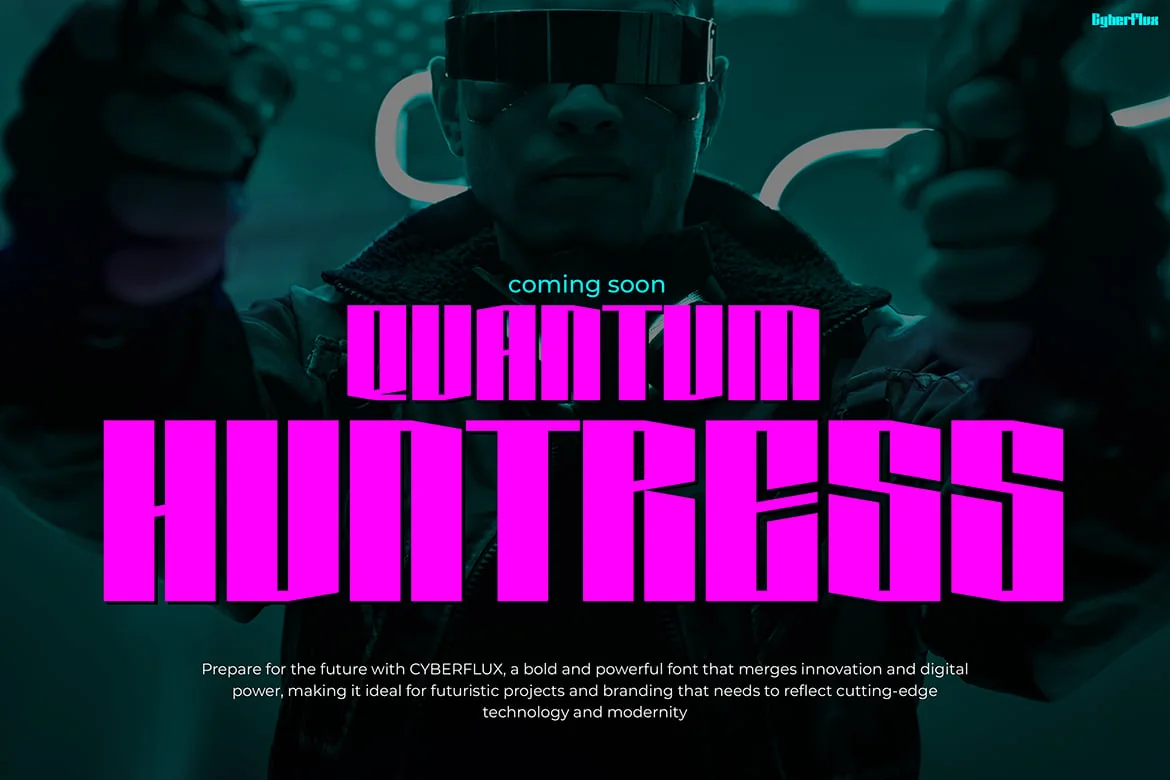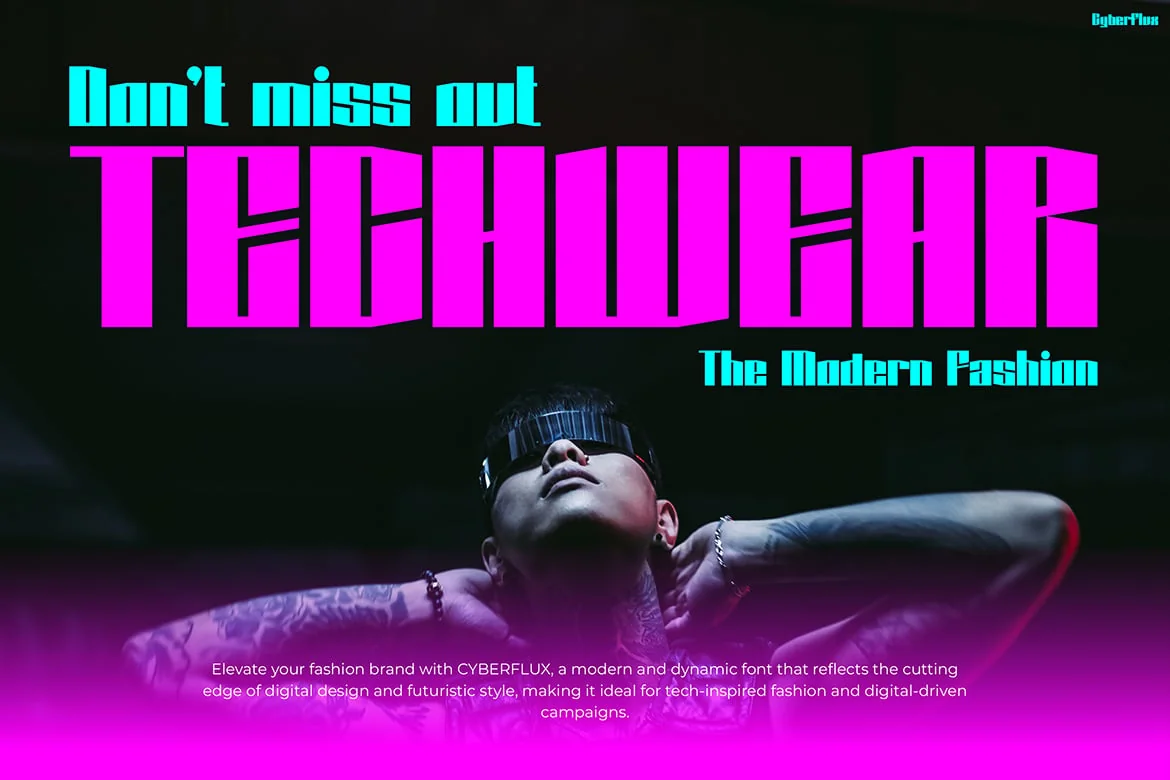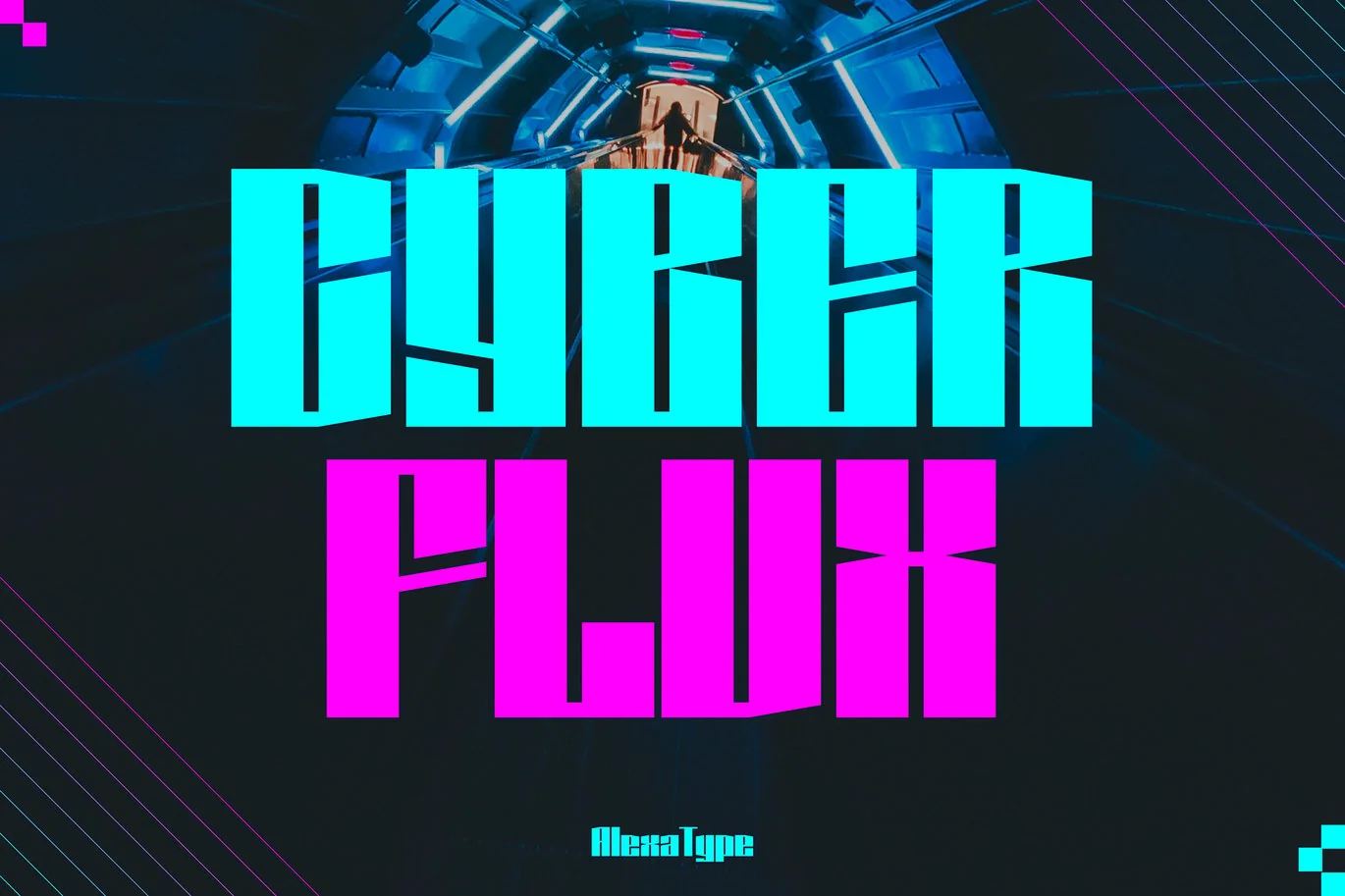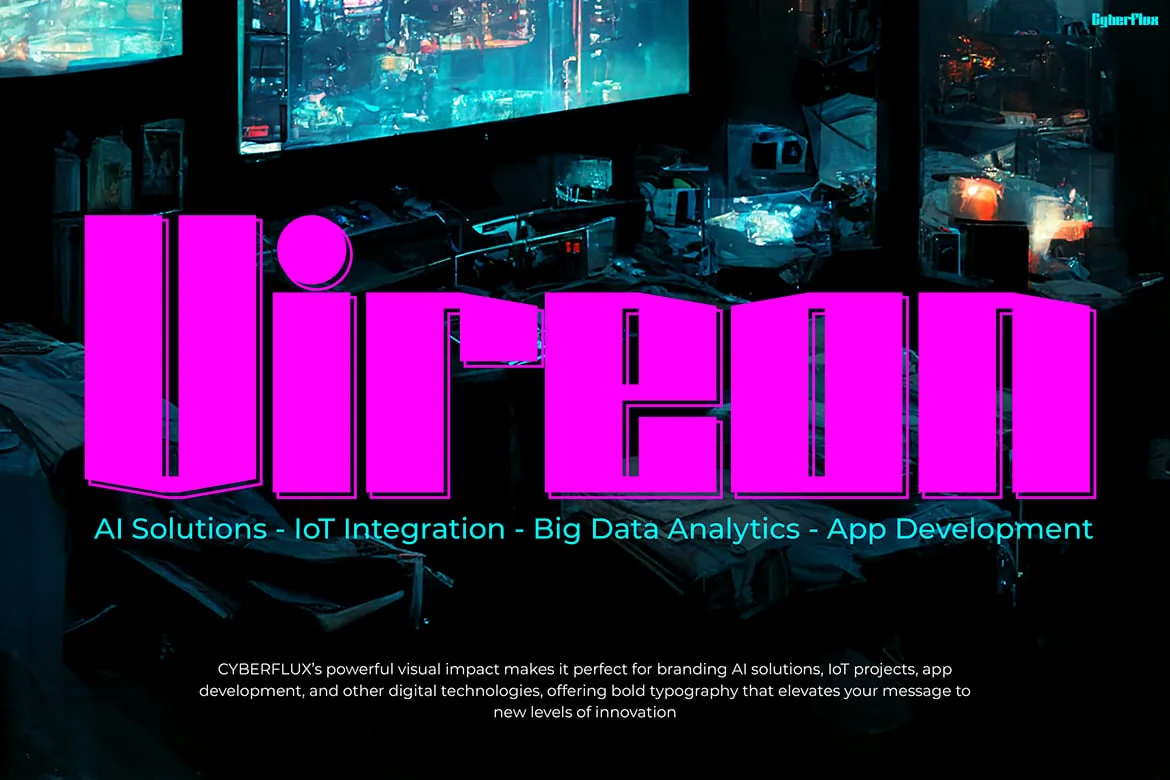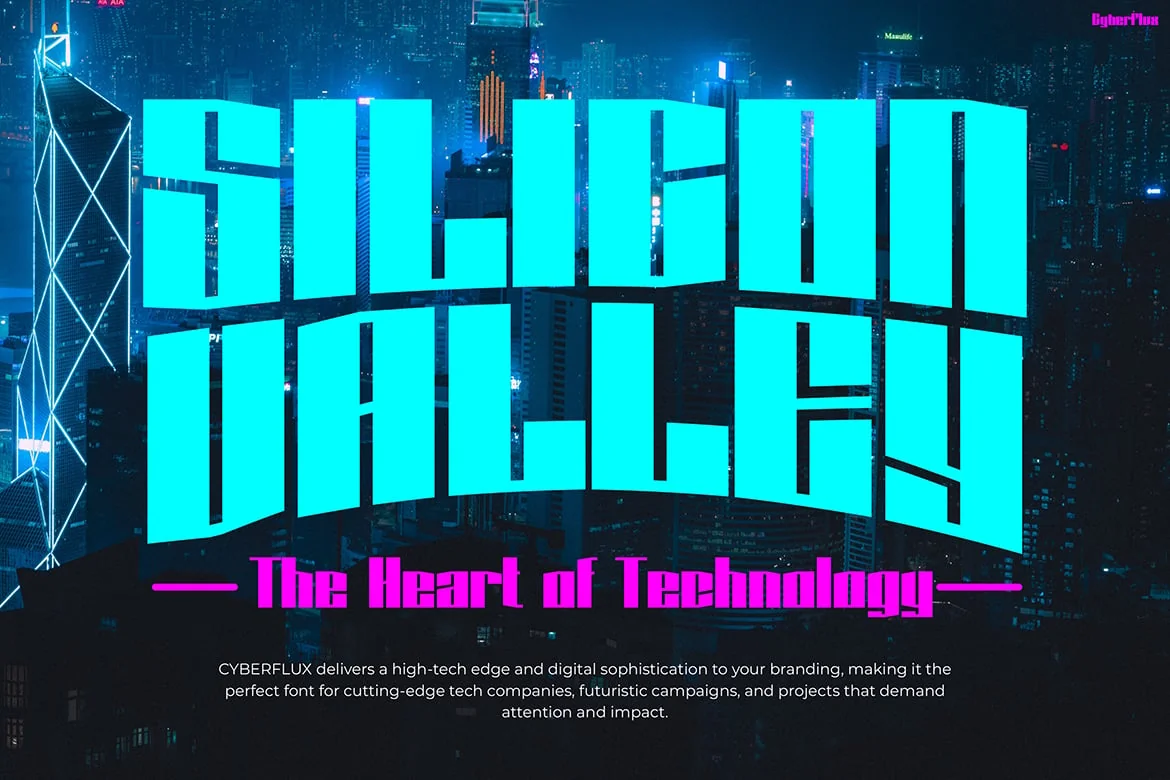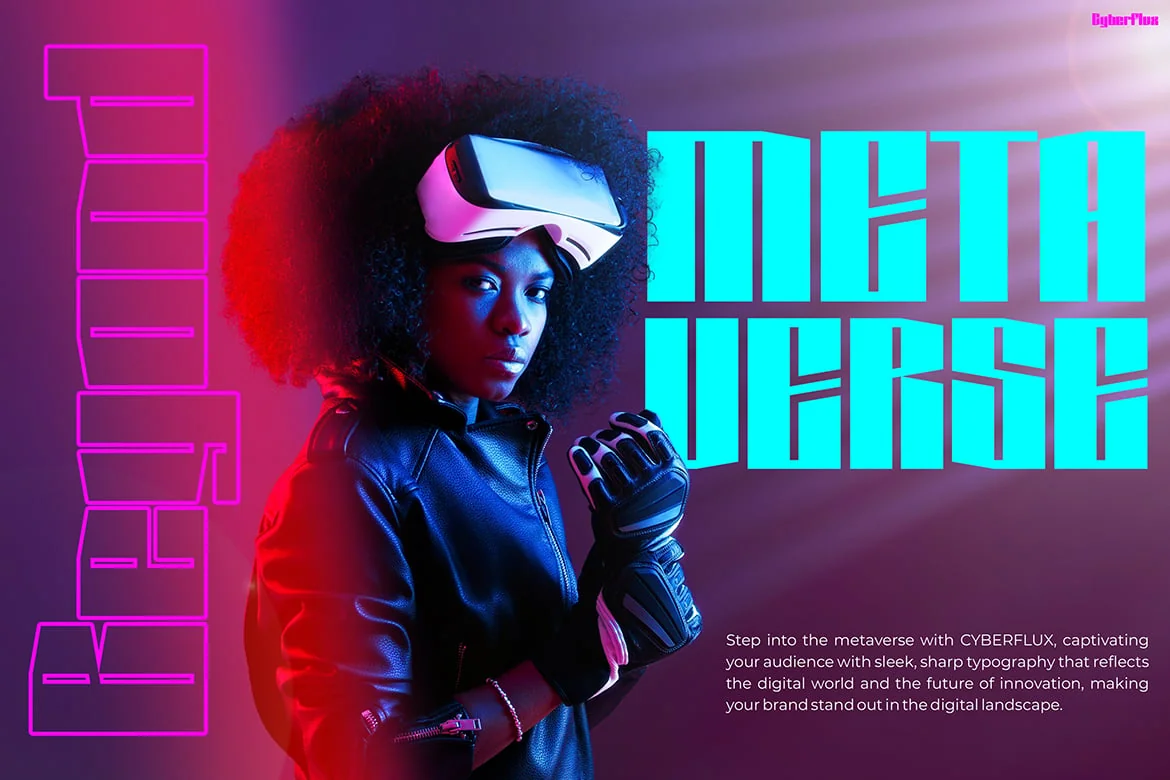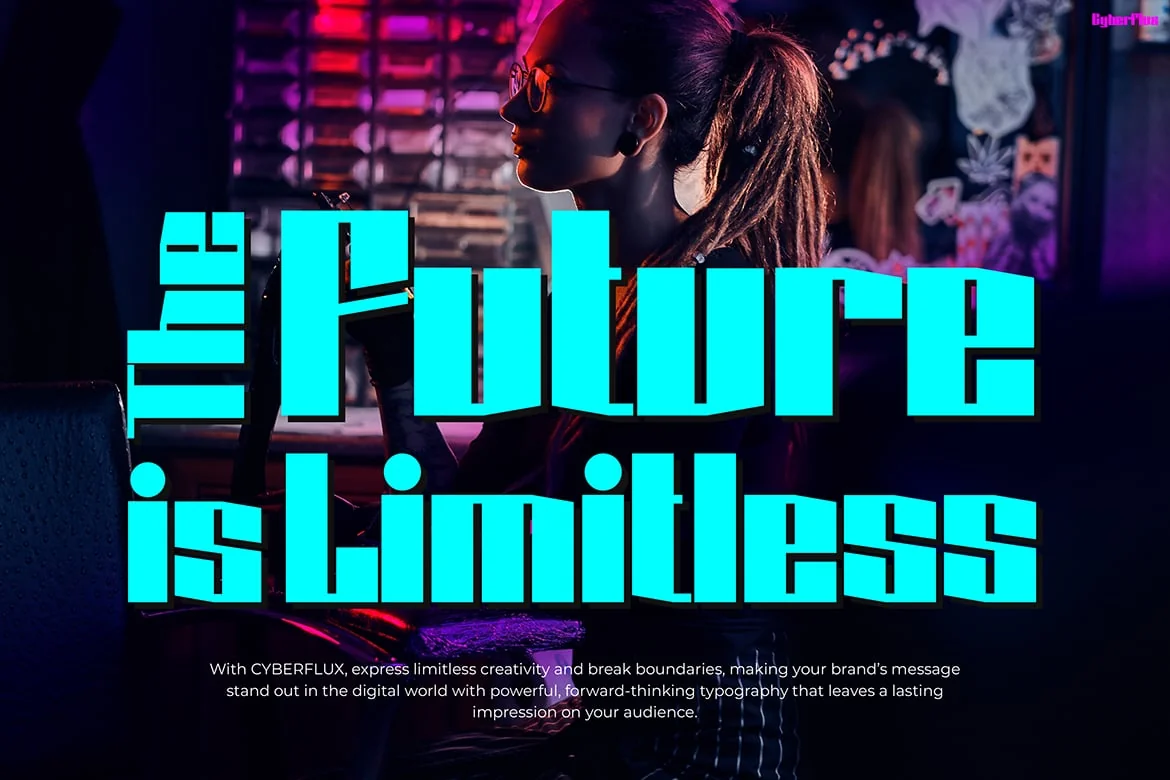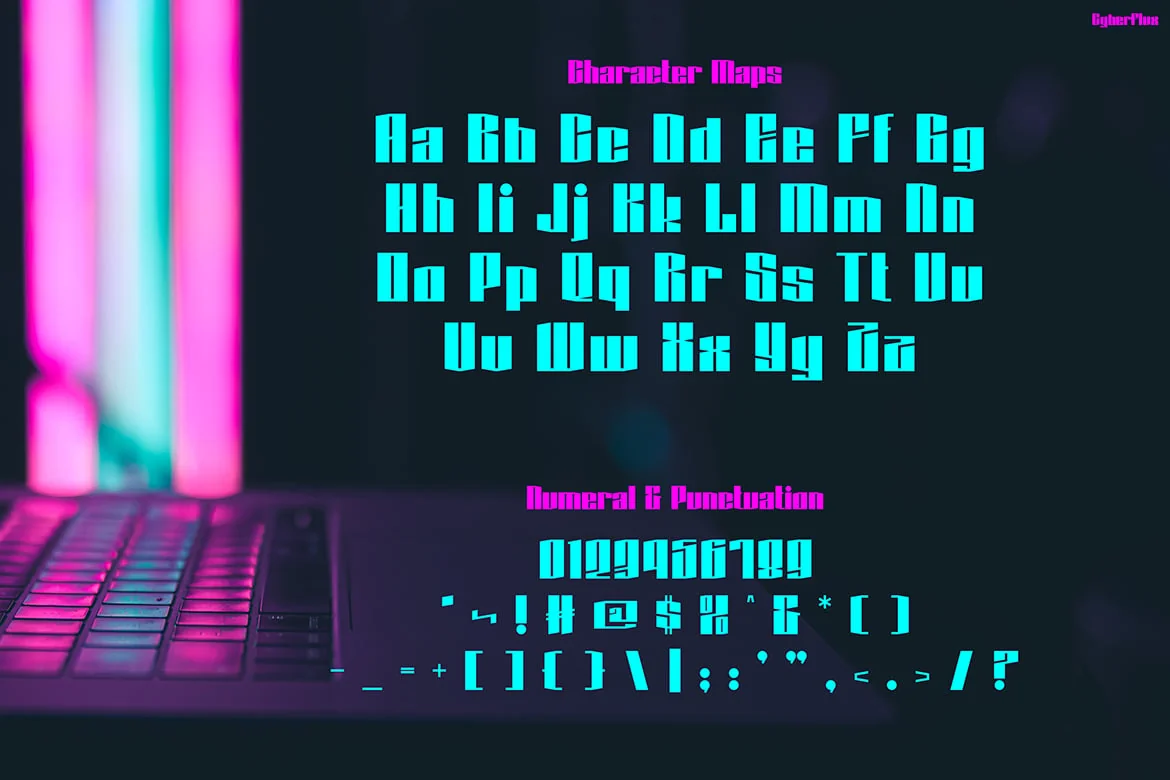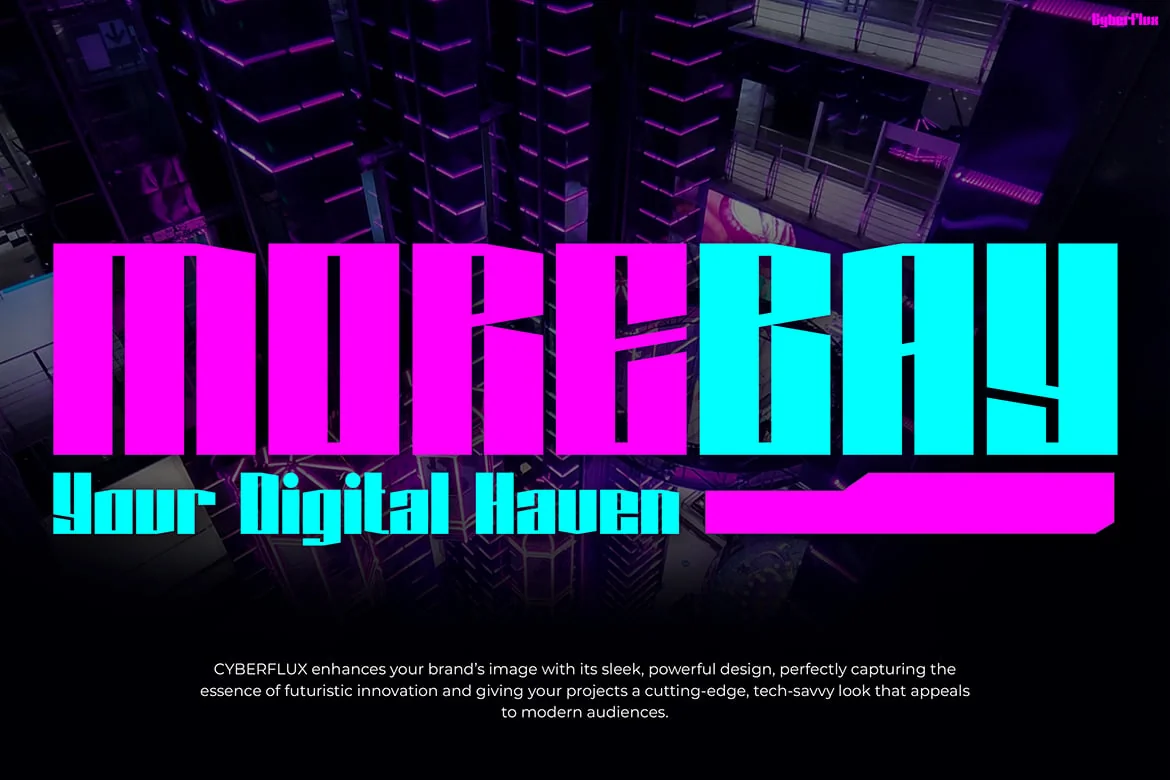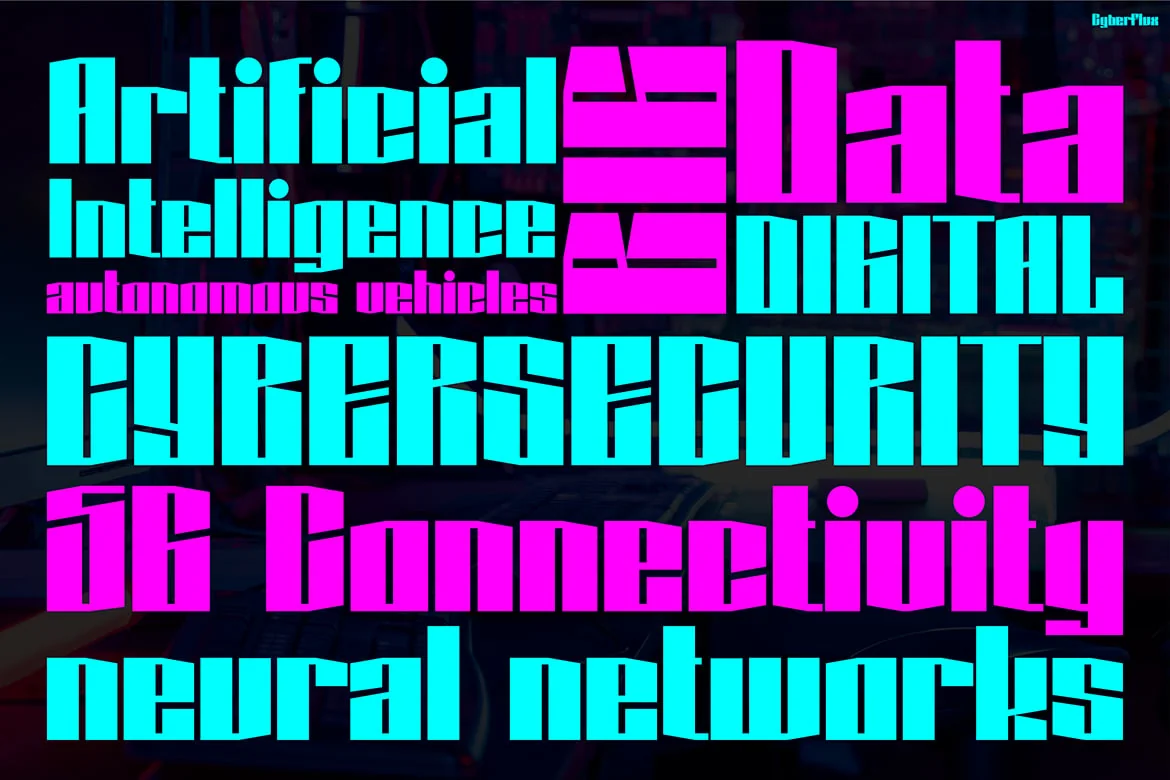
Bold Techno Display Font – Cyberflux
Enter the neon-lit world of CYBERFLUX – a heavy, futuristic display font engineered for the edge of digital innovation. Inspired by sci-fi aesthetics, metaverse culture, and techwear fashion, this typeface commands attention in every byte. CYBERFLUX is perfect for web3 startups, cyberpunk posters, esports branding, VR presentations, and anything that pulses with high-tech energy. With square-cut edges, confident spacing, and striking dual-tone mockups, this font is your digital identity in a bold, typographic form. Let your headlines glow. Your message? Undeniably futuristic.
- Futuristic all-caps style
- Bold and wide-cut letterforms
- Strong techwear & sci-fi identity
- Works great with neon, glitch, and hologram effects
- Ready for posters, branding, UI displays, or motion graphics
Cyberflux is best for : Cyberpunk visuals, metaverse launch decks, Y2K tech branding, esports logos, techwear fashion drops, VR event posters, and quantum startup vibes.